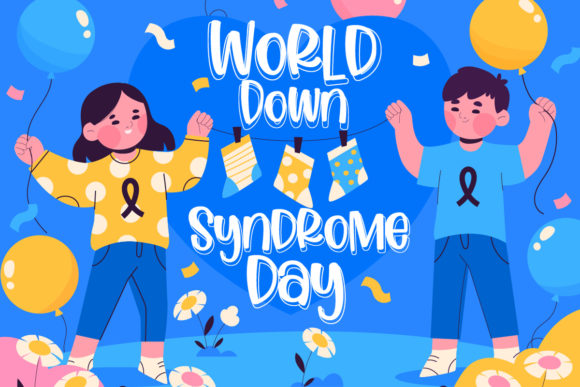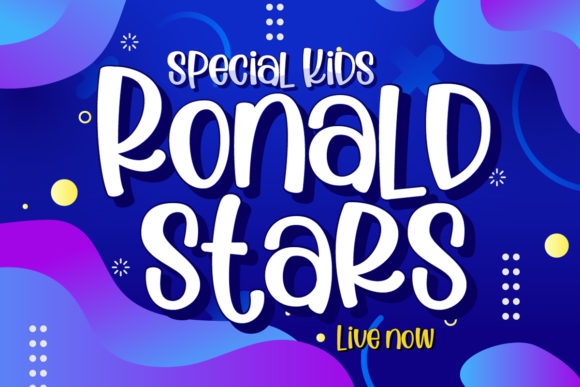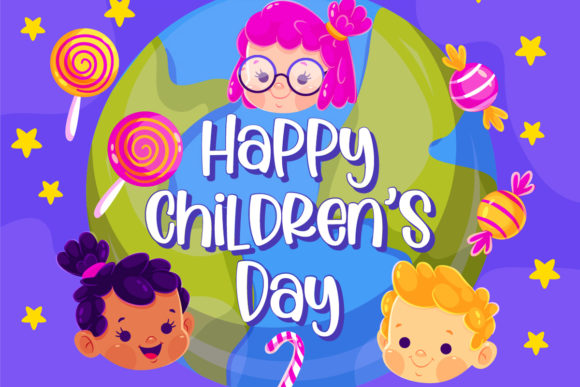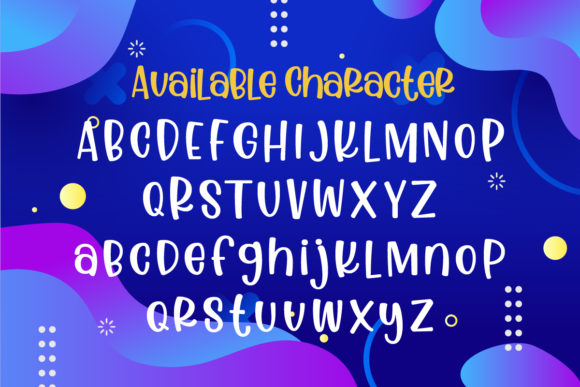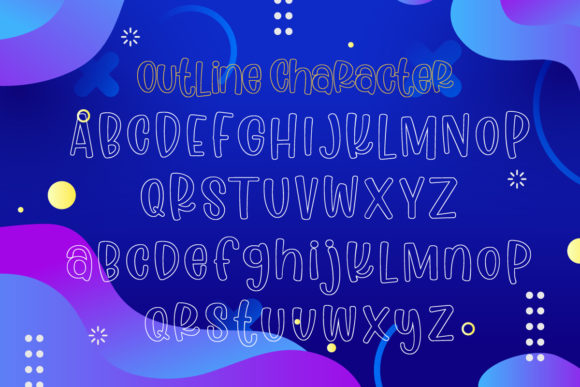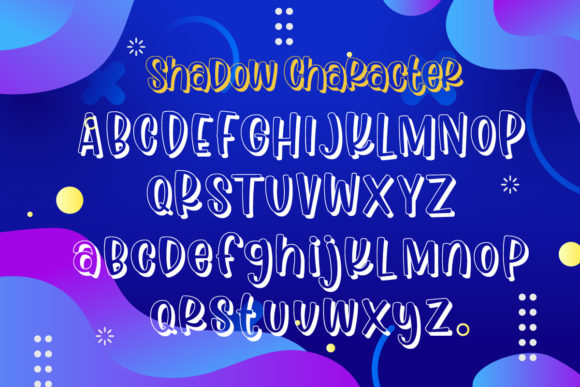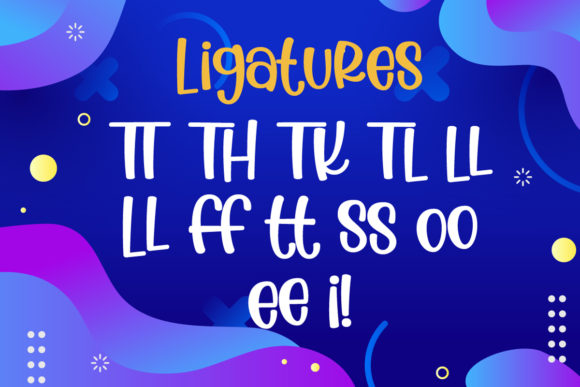
Anak Sultan Font
About Anak Sultan Font
Anak Sultan is a modern, fresh and whimsical handwritten font. Clean and a little bit quirky, this font is the perfect fit for all of your logos, branding, social media, and crafty DIY projects.